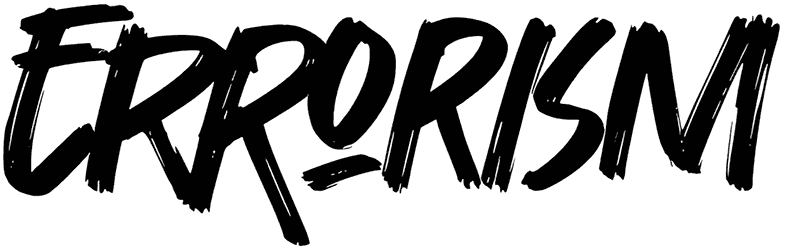
Errorism Font
Errorism is a timeless script font that easily provokes a vibe of jauntiness, professionalism, dynamic, or tenderness in the audience’s minds and easily engages them with your creative ideas.
Due to its unique style, it is better to overlook the lack of lowercase letters and not fully supporting numbers and easily include this brush font in all of your graphic content such as posters, digital banners, stickers, social media posts, or applications. Also, visit our archive to find more products.